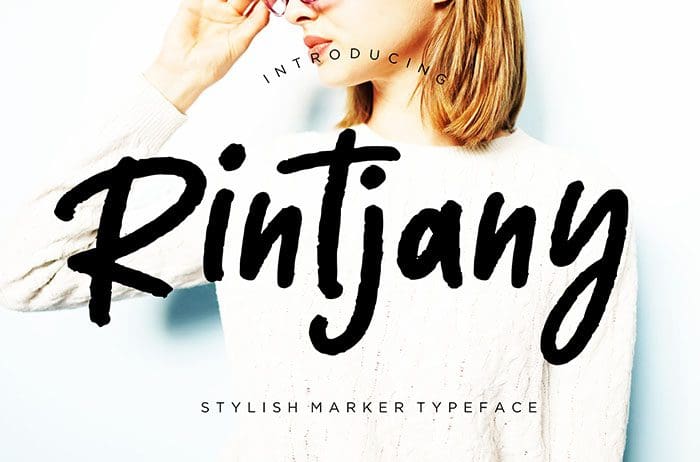
Rintjany Brush Font
Rintjany is a stylish marker Brush Font that looks natural and perfect for casual occasions. Rintjany is perfect for branding projects, logos, and many more. Thanks to Creatype Studio for sharing this font! Take a look at this portfolio for more of his stunning fonts.